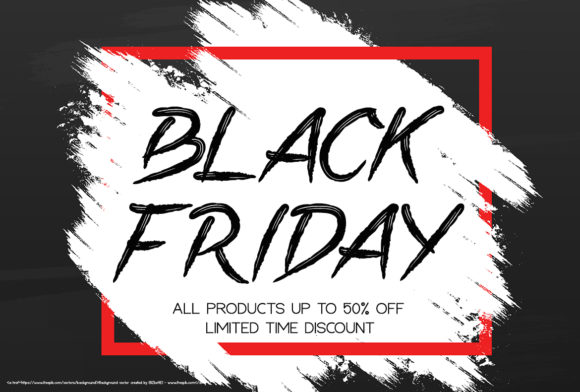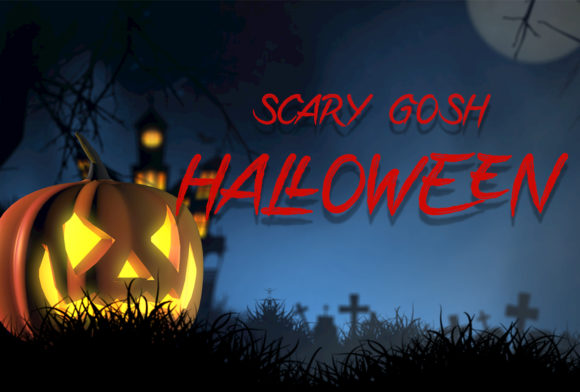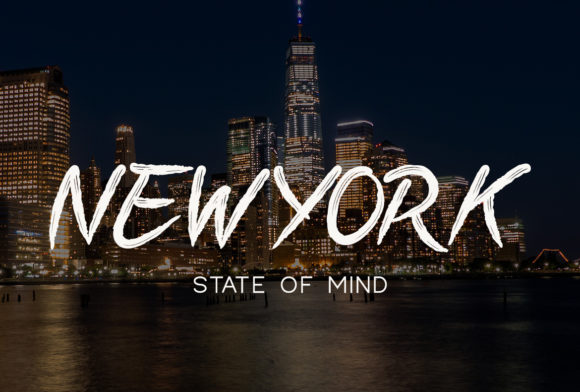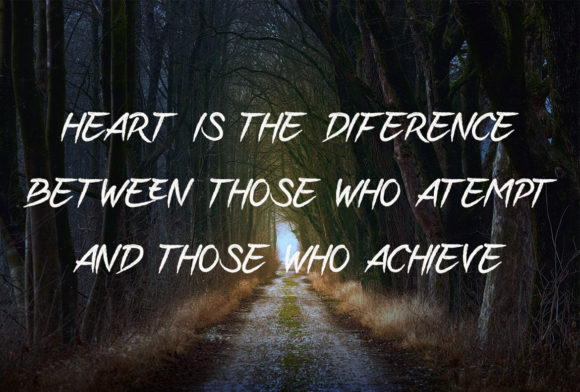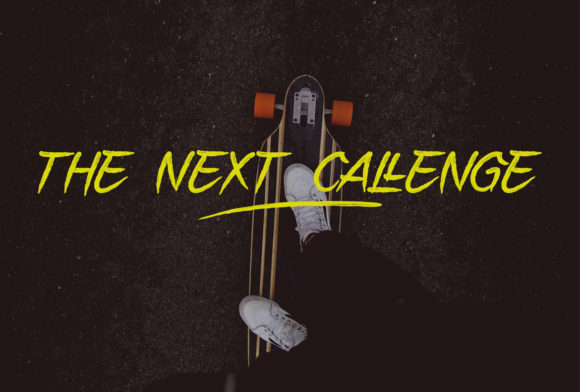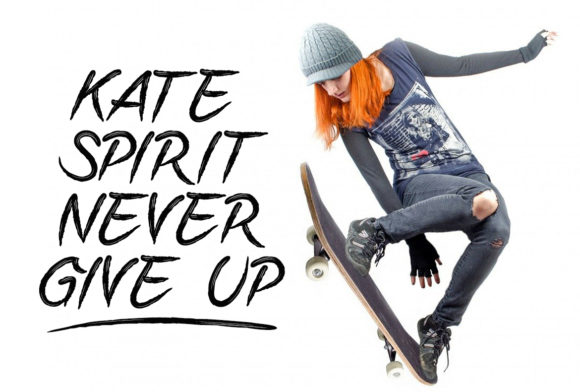
Introduction to Endellia Font
Endellia is a bold and thick lettered display font, created with the help of a brush pen.
Add it to your most creative ideas and notice how it makes them come alive .
Key Features of Endellia Font
Endellia Font offers exceptional quality and versatility, making it a valuable addition to your design toolkit. Whether you’re creating for personal projects or commercial use, Endellia Font delivers professional results.